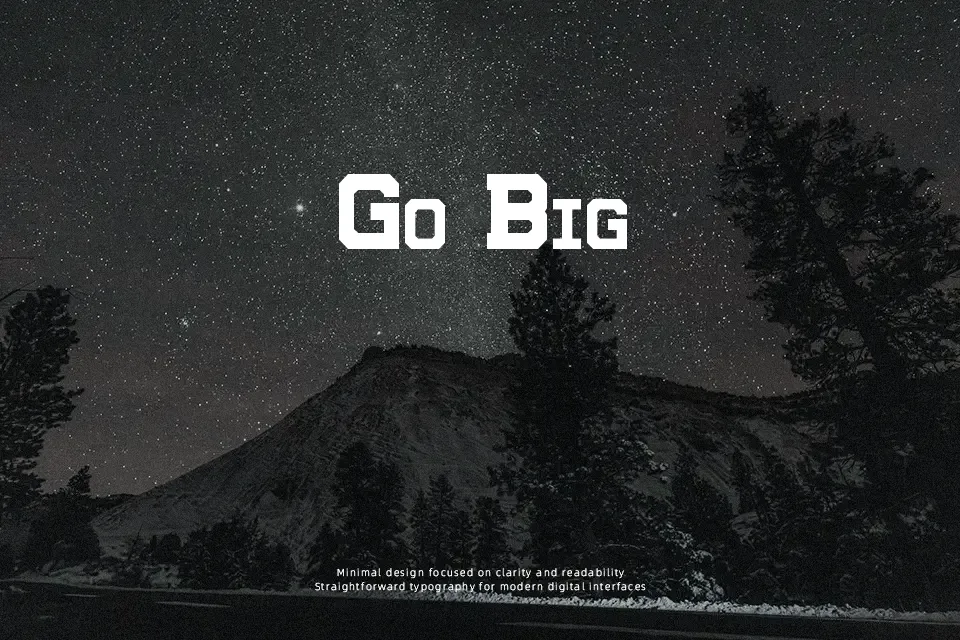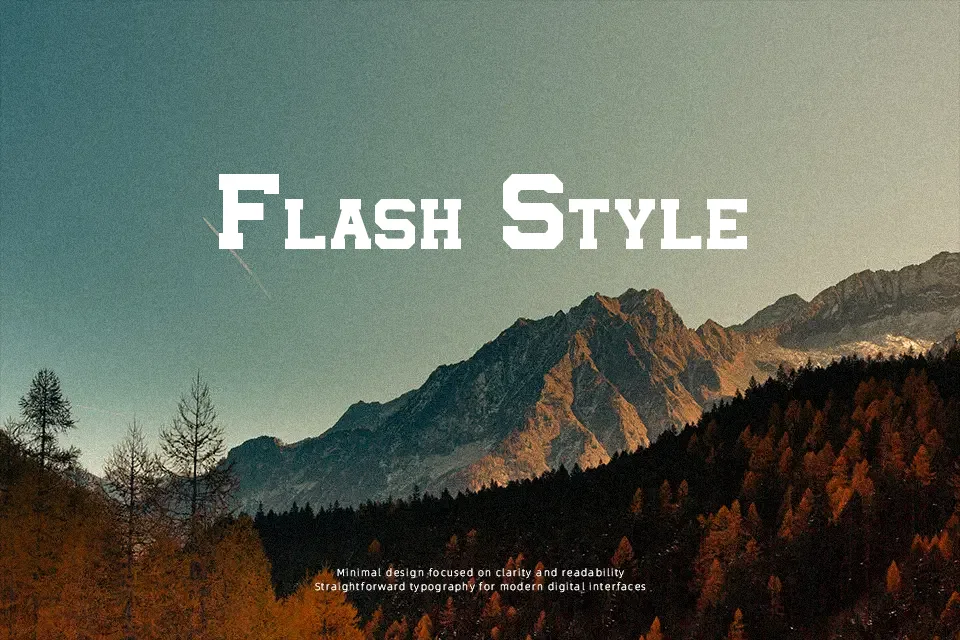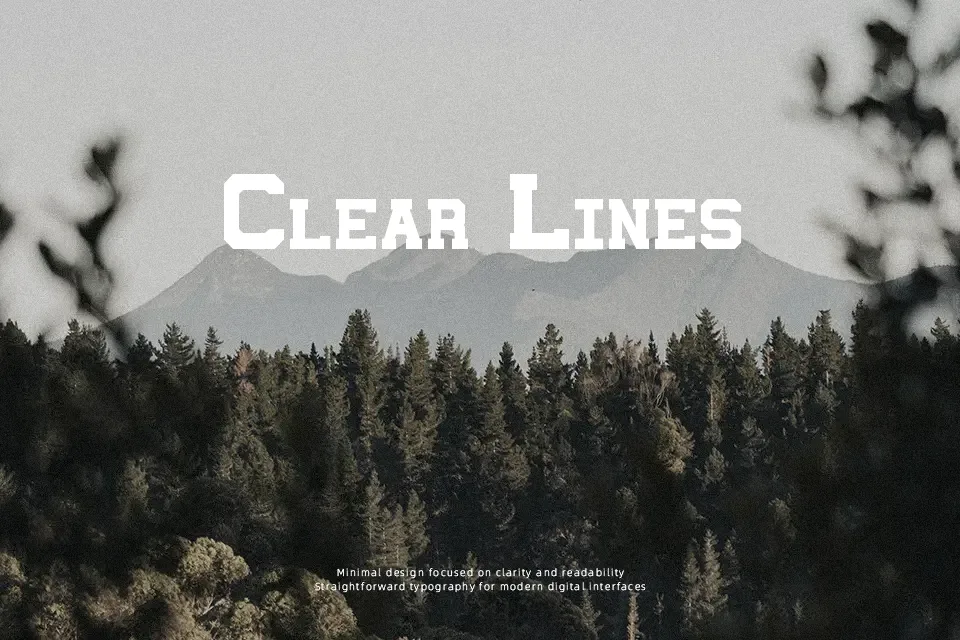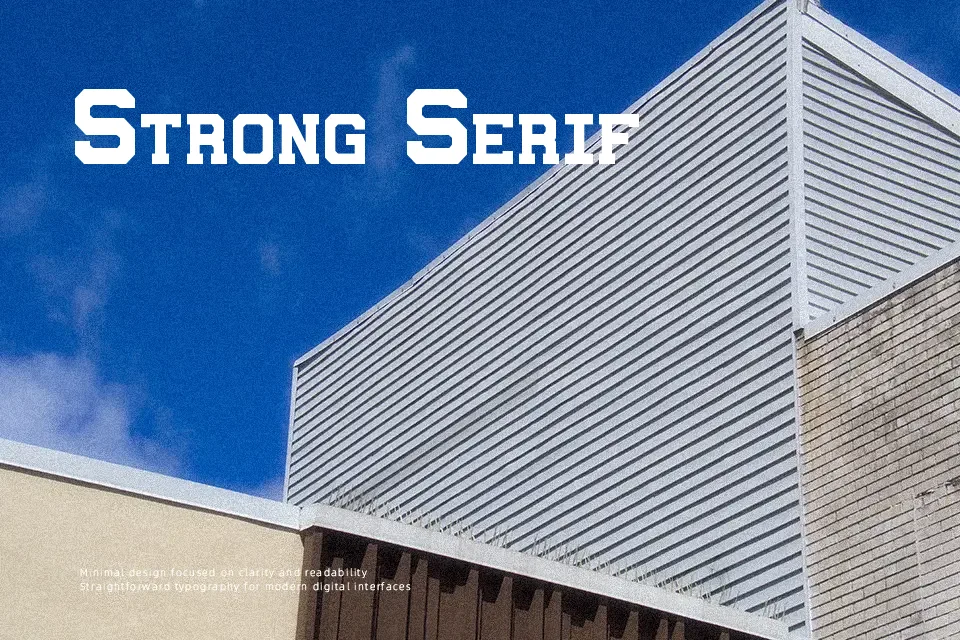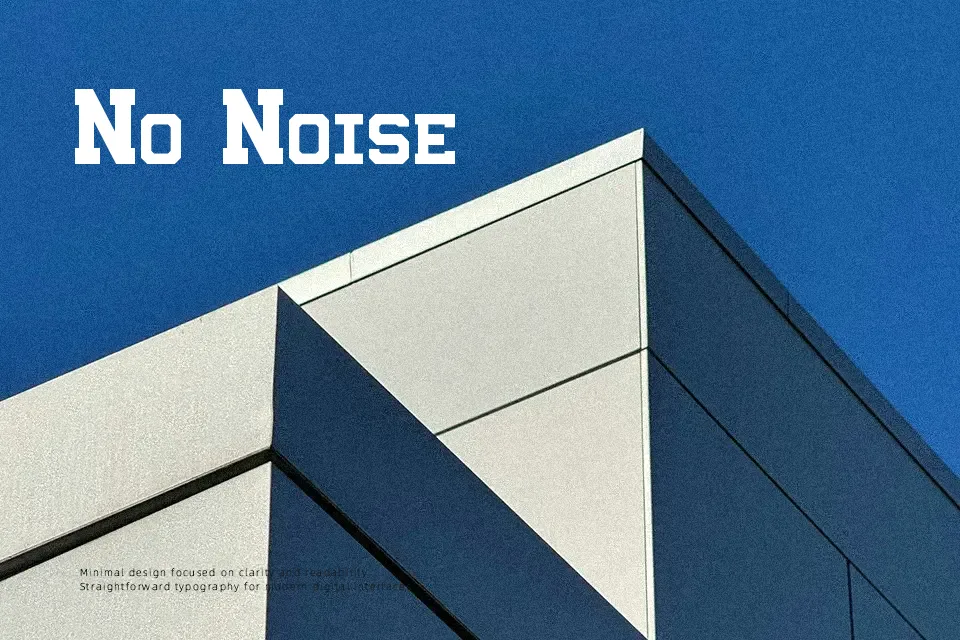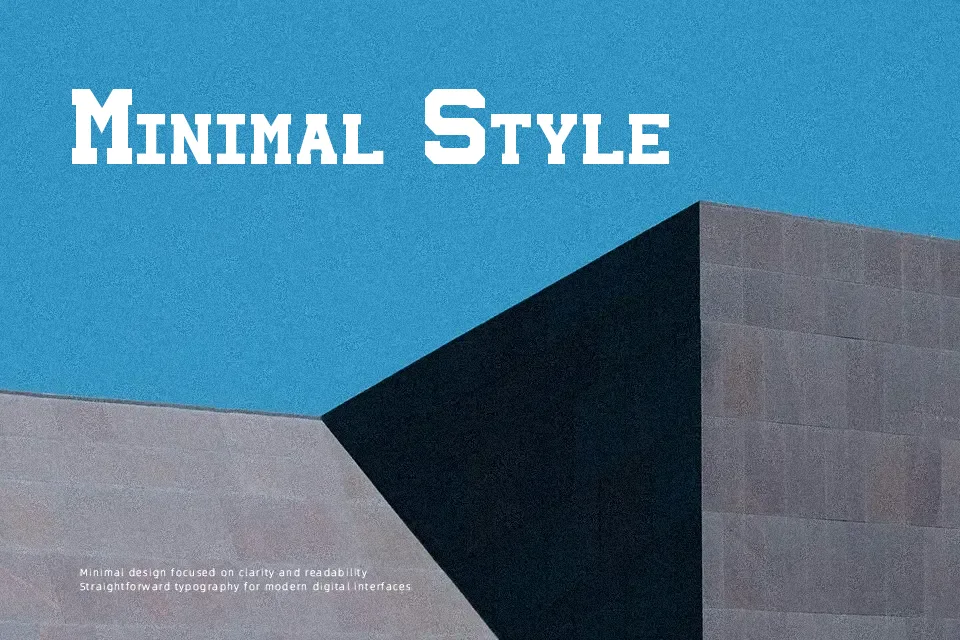
Station 232 Font
Designed by Robert Gerlach
Station 232 Font exhibits a robust collegiate aesthetic grounded in uniform stroke weights, rigid rectangular counters, and hefty slab terminals. The glyphs follow compact horizontal proportions with balanced kerning that prevents adjacent characters from colliding in tight header spaces. Because the solid letterforms command immediate attention, the design excels in varsity apparel lettering, stadium signage, and bold promotional headlines. The prominent serifs maintain sharp legibility when scaled for outdoor signage. However, the heavy density and rigid contours make the typeface unsuitable for extended editorial paragraphs, where dense blocks of continuous text quickly become fatiguing to read.
Best For: collegiate athletic apparel, sports team jerseys, campus event posters, stadium headline signage
Not Ideal For: long editorial paragraphs, mobile application body copy, formal legal agreements, dense book typesetting